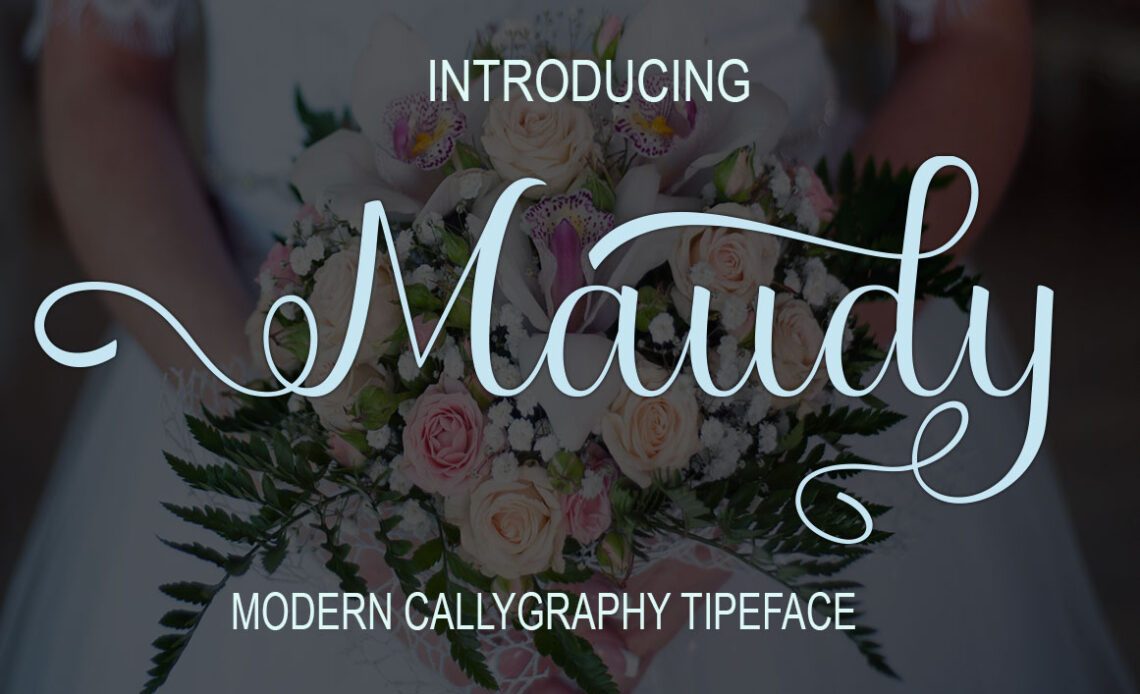
**Introducing Maudy Font: The Playful Handwritten Calligraphy Font**
Welcome to the whimsical world of Maudy Font, a delightful handwritten calligraphy font that will bring a touch of playfulness and charm to your creative endeavors. Crafted by the talented team at Saidi Studio, Maudy was meticulously created by hand, ensuring each stroke and curve exudes authenticity and character.
**Unleash Your Creativity with Endlessly Versatile Uses**
Maudy's versatility knows no bounds. Let your imagination soar as you explore its potential in a myriad of projects. Whether you're crafting heartfelt invitations, whimsical posters, or eye-catching social media graphics, Maudy will effortlessly elevate your designs and captivate your audience.
**Embrace the Joy of Effortless Expression**
With Maudy Font, expressing yourself has never been easier. Its playful nature will infuse your words with a touch of whimsy, making them dance across the page with an irresistible charm. Let Maudy become your creative companion, guiding you towards a world of boundless possibilities.
**Indulge in the Beauty of Imperfection**
Embrace the organic beauty of Maudy's handwritten strokes. Each letter carries a unique personality, adding a touch of authenticity to your creations. Celebrate the imperfections that make this font so captivating, and let its imperfections inspire your own artistic journey.
**Experience the Joy of Handcrafted Art**
With Maudy Font, you'll feel like you're holding a piece of handcrafted art in your digital hands. Its meticulous design and attention to detail will evoke a sense of nostalgia, reminding you of the timeless beauty of handwritten letters. Let Maudy transport you to a world where creativity flows effortlessly.
**Stand Out from the Digital Crowd**
In a world saturated with digital fonts, Maudy Font stands out as a true gem. Its playful and charming character will set your designs apart, ensuring your message resonates with an unforgettable impact. Embrace the power of Maudy, and let your creations shine with a touch of handmade magic.
**Let Playfulness Guide Your Designs**
Step into a realm of boundless creativity with Maudy Font. Its playful spirit will inspire you to explore new design horizons, injecting a dose of whimsy and delight into every project you undertake. Let Maudy be your guide as you embark on a journey of artistic discovery and self-expression.